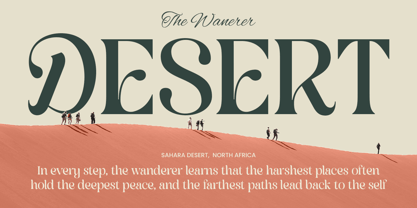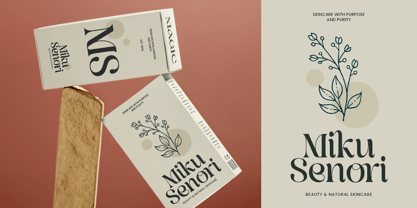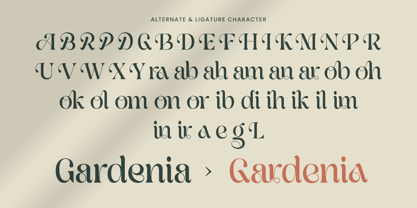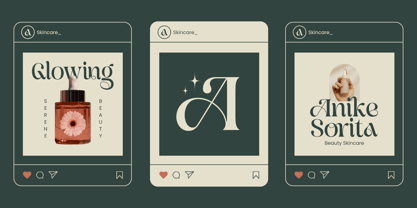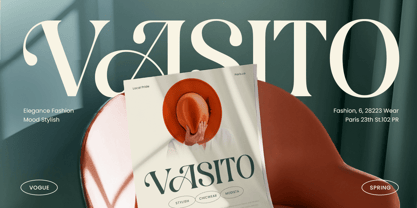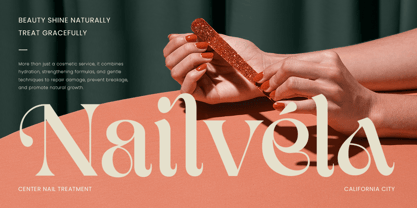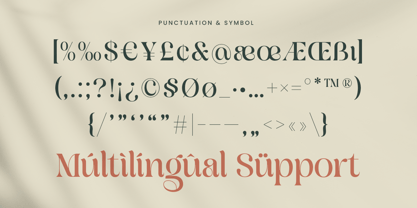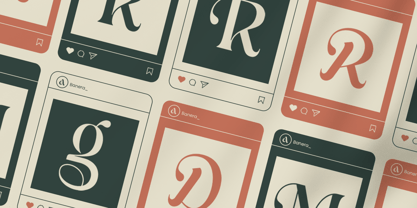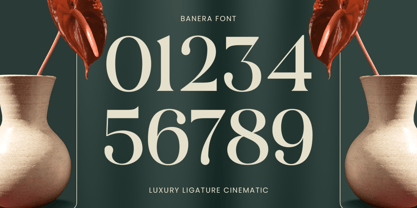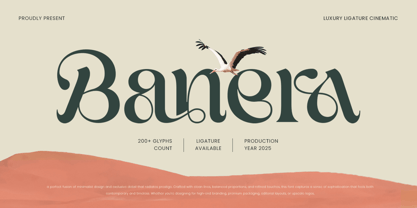
Banera blends cinematic elegance with modern sophistication, featuring unique ligatures and graceful curves. Perfect for high-end fashion branding, magazine covers, wedding invitations, and film posters, Banera brings refined drama and a luxurious feel to every visual composition. Its letterforms flow seamlessly, creating stylish wordmarks and polished headlines that make a bold, elegant statement.
Crafted for designers who crave both beauty and versatility, Banera's combination of classic serif structure and distinctive ligatures ensures standout typography. Whether for digital screens or print design, it sets the tone for timeless elegance.
Unleash your creativity with Banera—a cinematic font that adds glamour and finesse to any project.
Banera Luxury Ligature Cinematic Font Features:
Stylish Ligature & Elegant Serif Style
Ideal for Logos, Fashion, Editorials & Wedding Invitations
Punctuation, Numbers, and Symbols
Uppercase and Lowercase
Opentype Features
Multilingual Characters available for:
Afrikaans, Albanian, Asu, Basque, Bemba, Bena, Breton, Chiga, Cornish, Dutch, English, Estonian, Filipino, Finnish, Friulian, Galician, German, Gusii, Indonesian, Irish, Italian, Kabuverdianu, Kalenjin, Kinyarwanda, Luo, Luxembourgish, Luyia, Machame, Makhuwa-Meetto, Makonde, Malagasy, Manx, Morisyen, North Ndebele, Nyankole, Oromo, Portuguese, Quechua, Romansh, Rombo, Rundi, Rwa, Samburu, Sango, Sangu, Scottish Gaelic, Sena, Shambala, Shona, Soga, Somali, Spanish, Swahili, Swedish, Swiss.
Banera